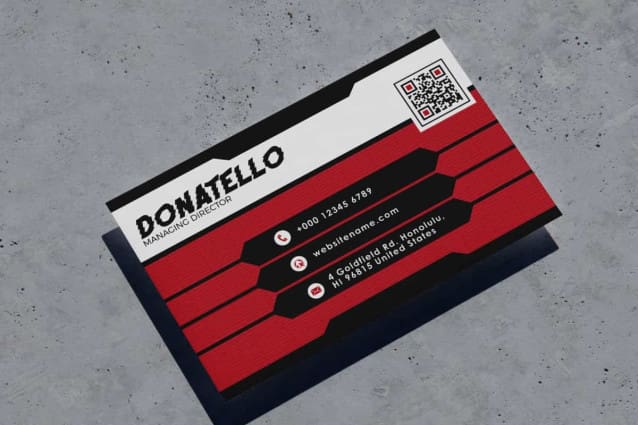
Run Clasher Font
Run Clasher Font is a glitchy speedy racing font from RaisProject. This font has zigzag lines as the main concept which makes it eye-catching and still clearly readable. It will be good for any designs, such as advertisement, brand image, custom design, invitation, label, marketing material, poster, product packaging, quotes, signage, stationery, website page, and more!
Run Clasher Font includes a full set of ALL CAPS for Uppercase and Lowercase Letters, Numerals, and large range of Punctuation. This awesome font with a racing vibe will be suitable for various industries, such as automotive, cafes, event or festival, fashion, game, printing, publishing, photography, sports, etc.